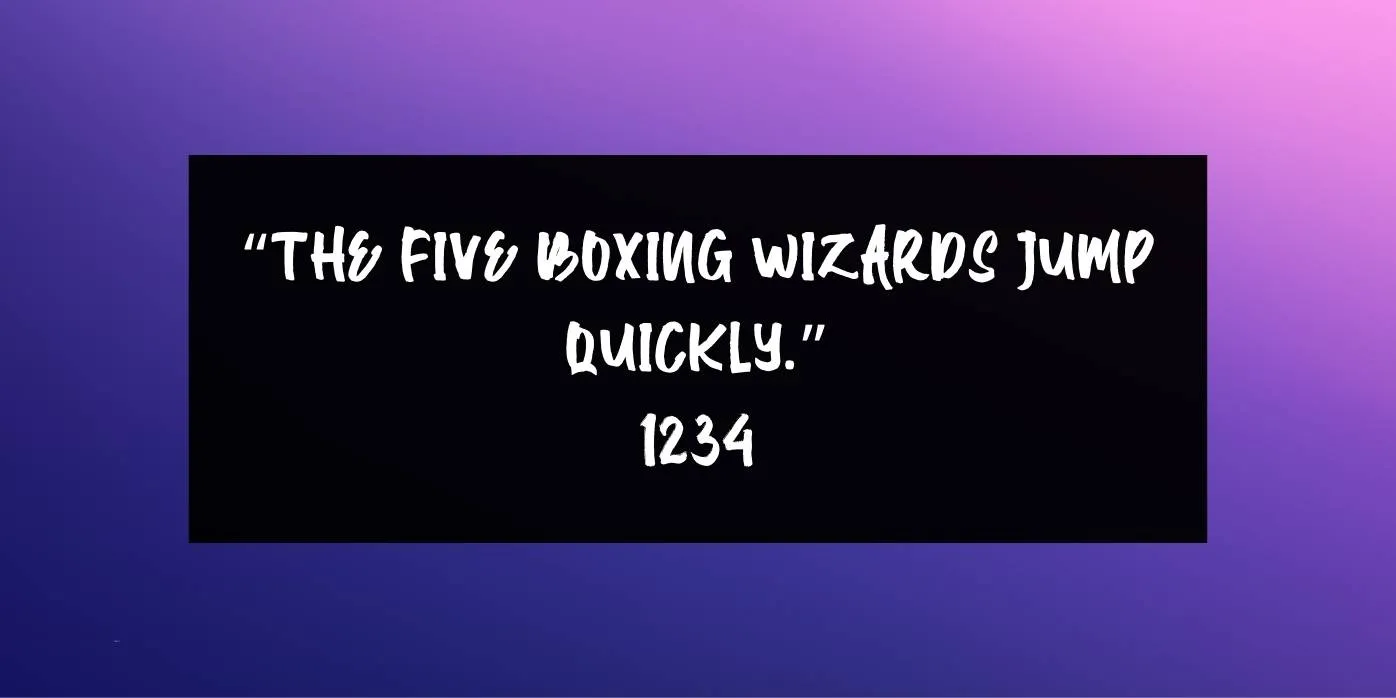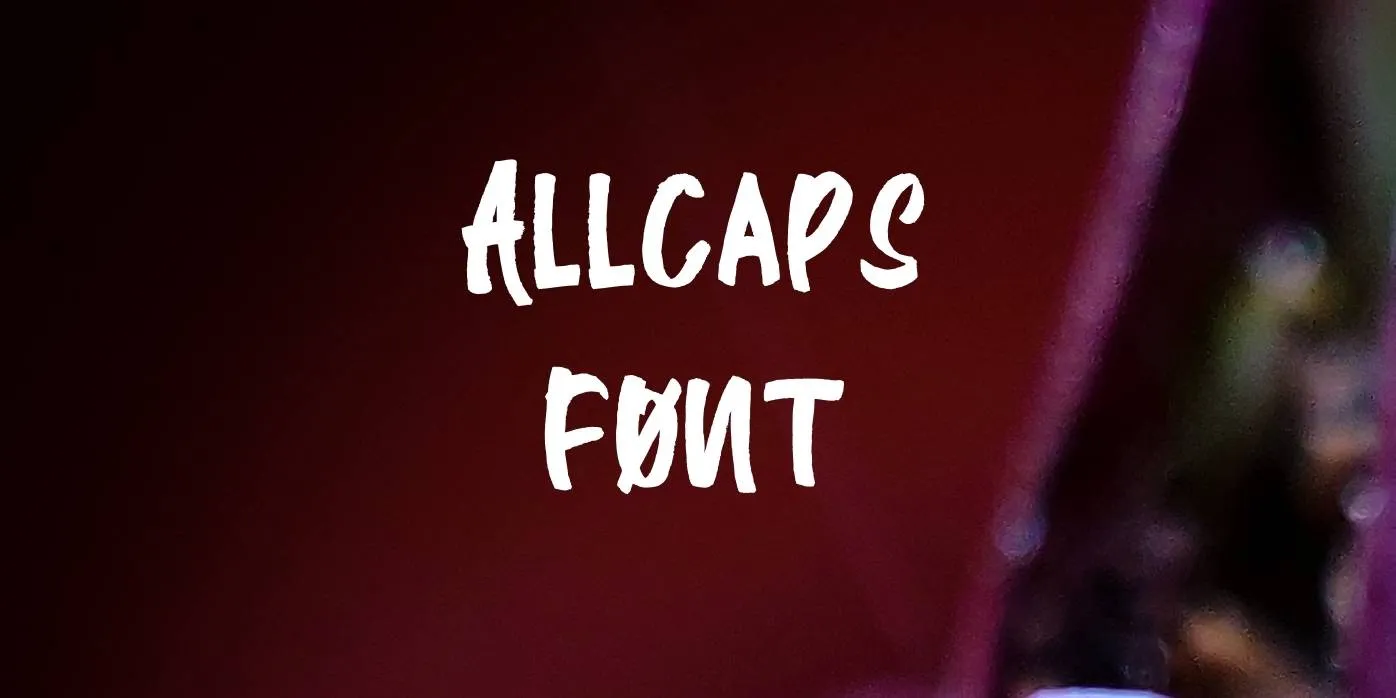
Allcaps Font
Today, we introduce Allcaps Font which belongs to the script typeface and was developed by Atjcloth Studio. This stylish font is a font that contains only uppercase letters. This font is a perfect choice for those who are looking for a simple but stylish font. This tremendous font is available in two weights, light and regular.
The light weight is perfect for smaller text sizes, while the regular weight is ideal for larger text sizes. This font also includes a set of numerals and punctuation marks. The copy-and-paste function of this family is suitable for various designs. You can also use december font which is closest to this font family.
This typeface has three styles, light, regular and bold. Allcaps Font is a great choice for both digital and print projects. It’s perfect for headlines, logos, branding, and more. Its generator tool is very useful in the field of graphic design.